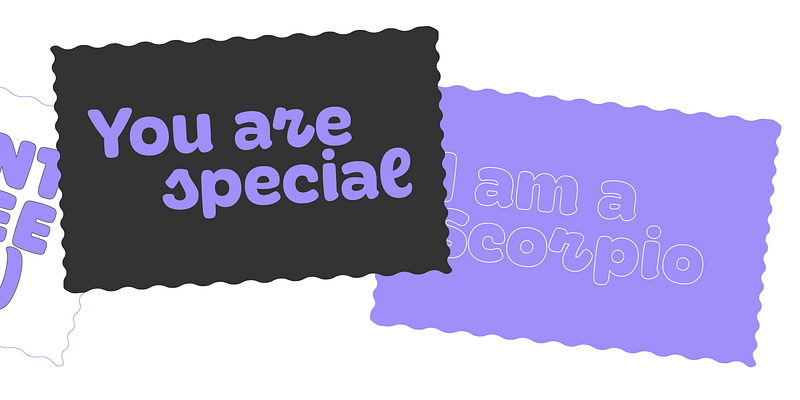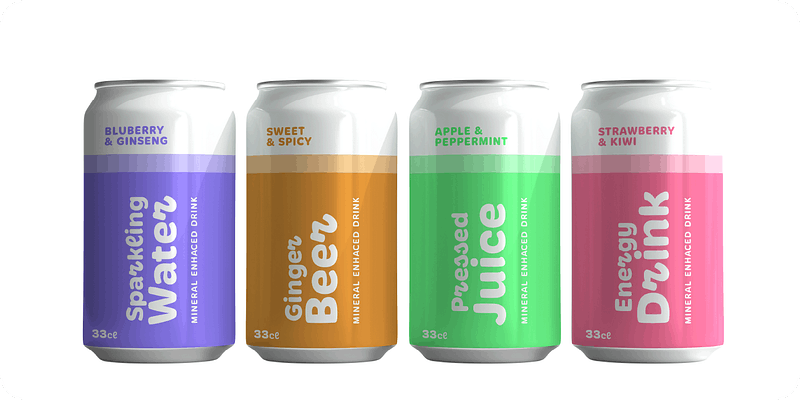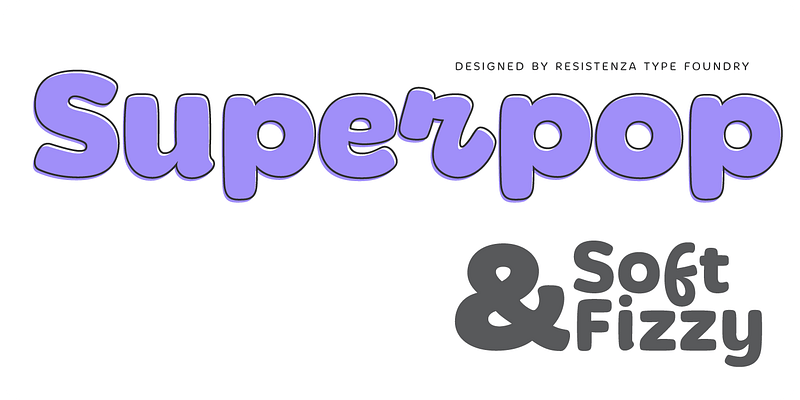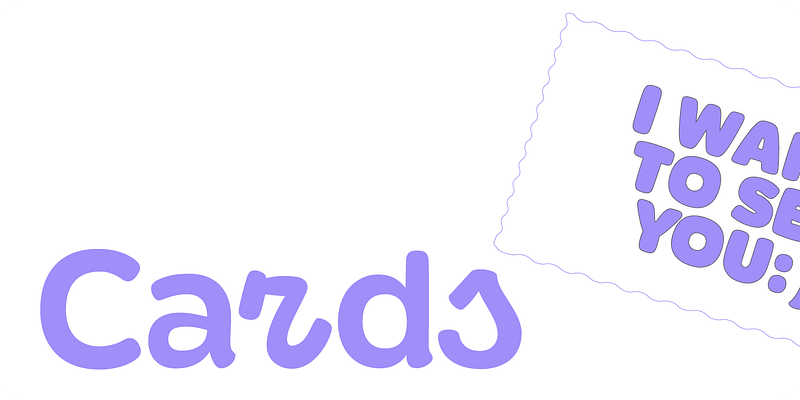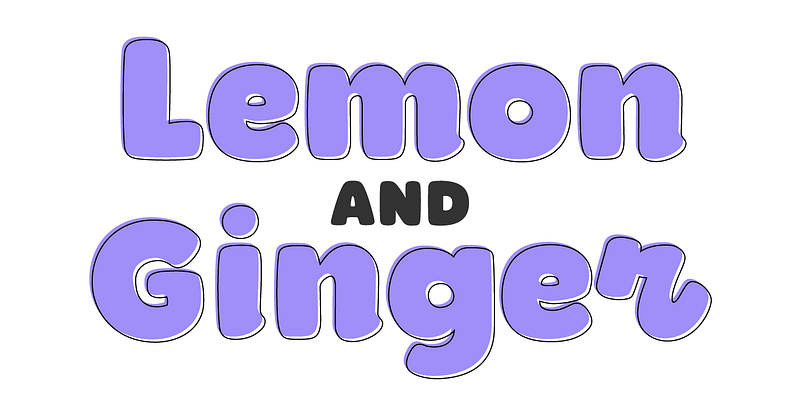
Superpop is sweet and gentle, a rounded geometric sans with a brushy script twist. Soft and refreshing like a soda, this font gets fizzy when geometric letterforms get mixed with script shapes you wouldn’t expect in a Sans Serif. A display family with two styles ( regular and italic ), 5 weights and an outline version for each style.